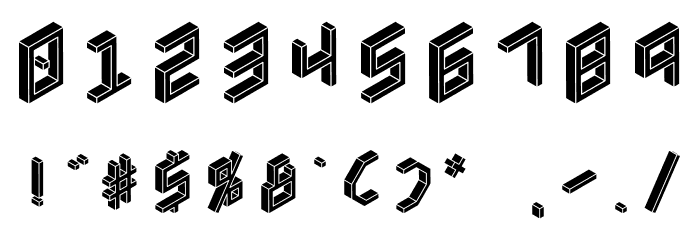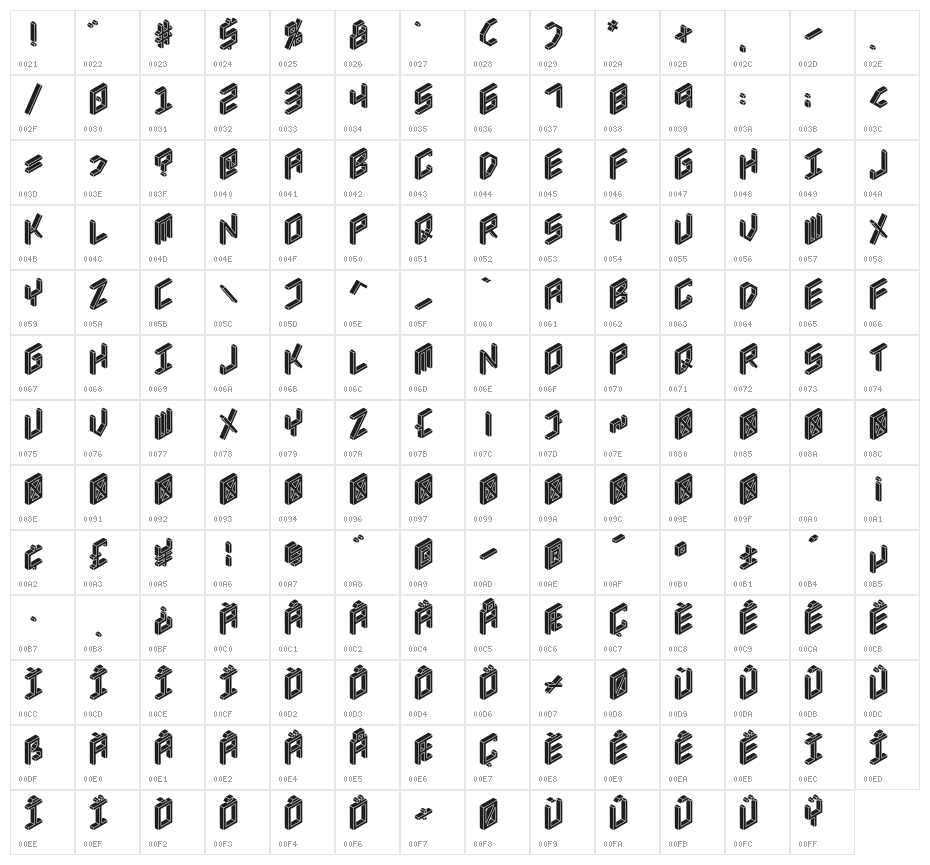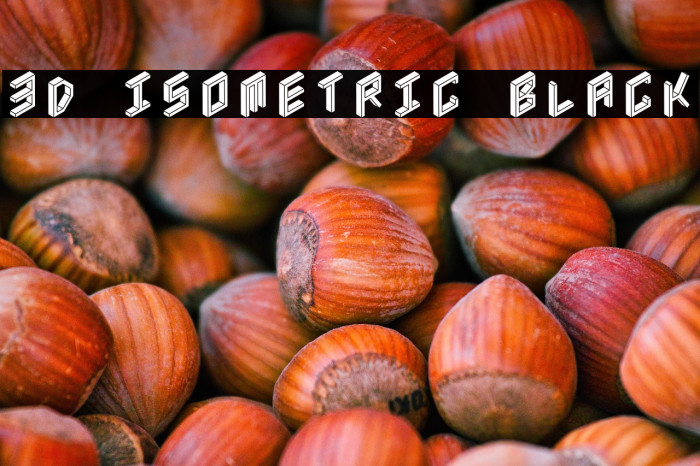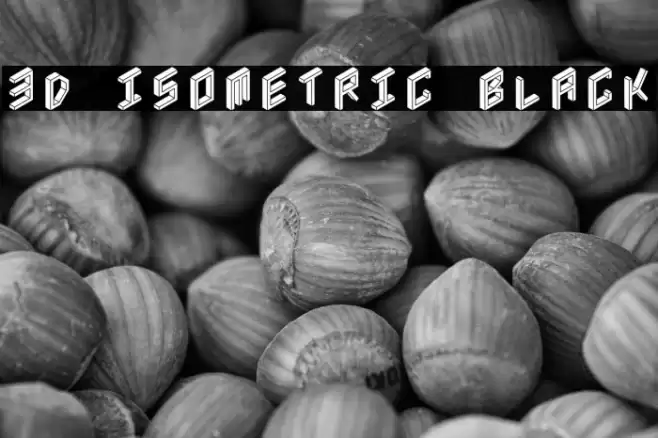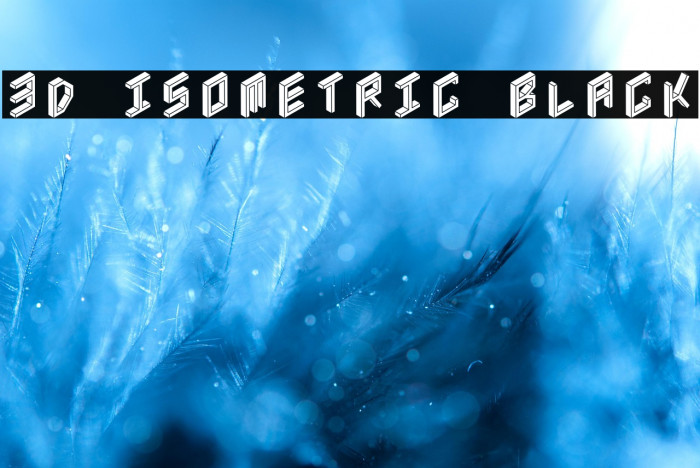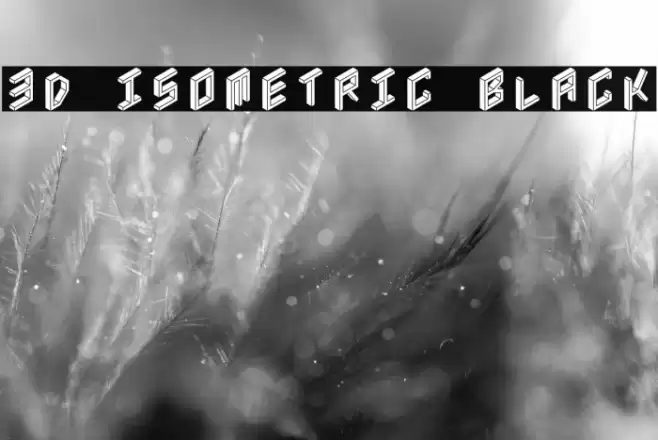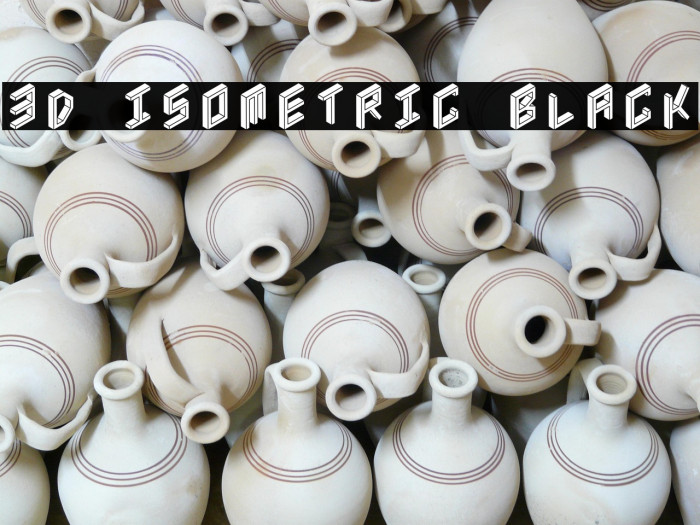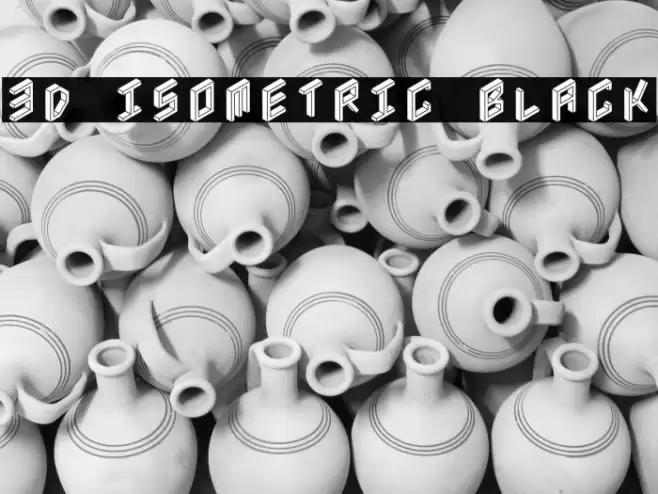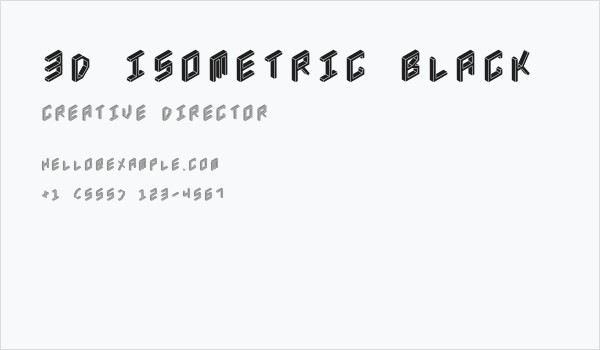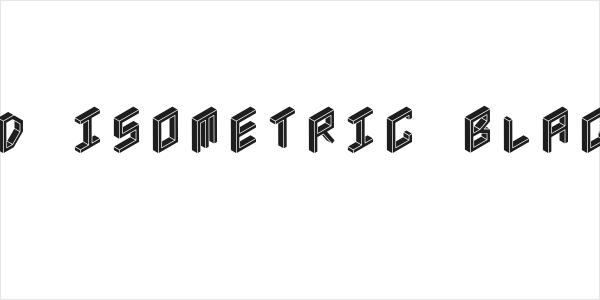
3D Isometric Black Font
3D Isometric Black Description
This font features a bold, three-dimensional isometric design that gives each character a striking, geometric appearance. The letters are constructed with a solid black outline and an inner white space, creating a strong contrast that enhances readability. The isometric perspective adds depth and a modern, edgy feel, making it ideal for eye-catching designs. The characters are uniformly styled, maintaining consistency across uppercase, lowercase, numbers, and special symbols. The font's unique structure makes it suitable for projects that require a futuristic or tech-inspired aesthetic.
| Proposed Projects | Ideal for video game titles, tech branding, futuristic posters, and digital art projects. |